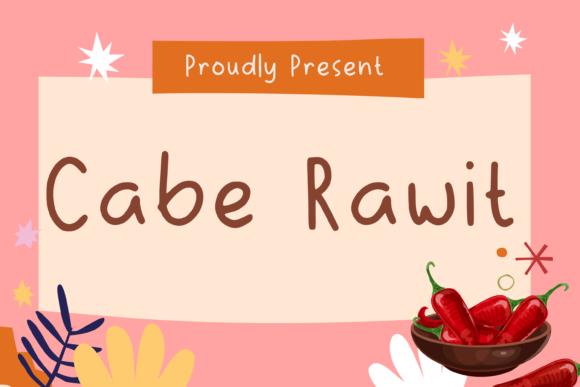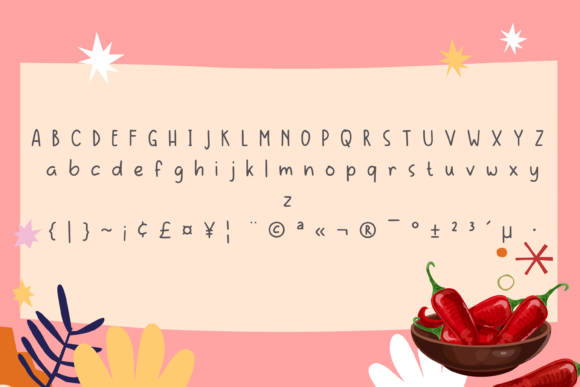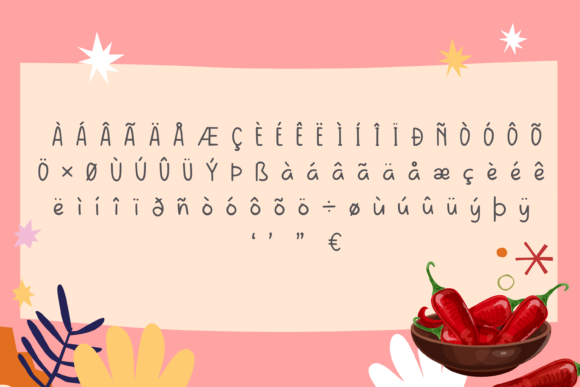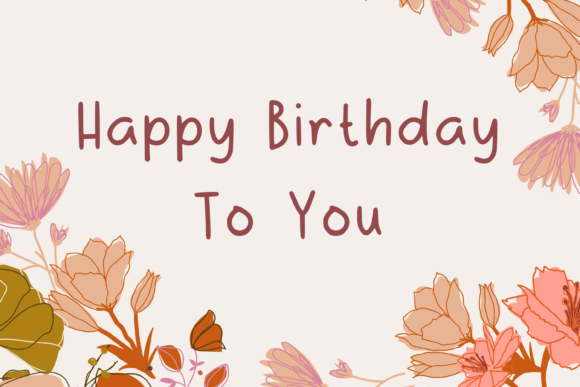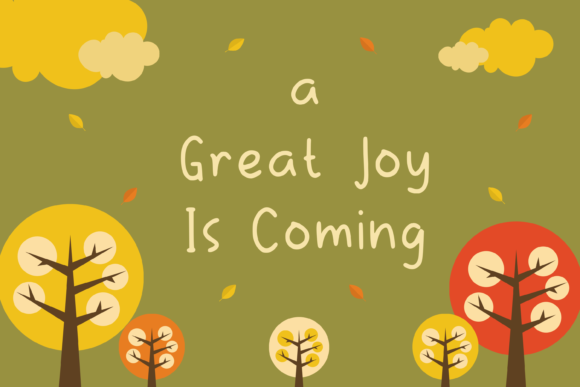
Cabe Rawit Font
About Cabe Rawit Font
Cabe Rawit is a cute and friendly handwritten font. Featuring a curvy, readable and down to earth style, this font will make each of your designs look gorgeous.